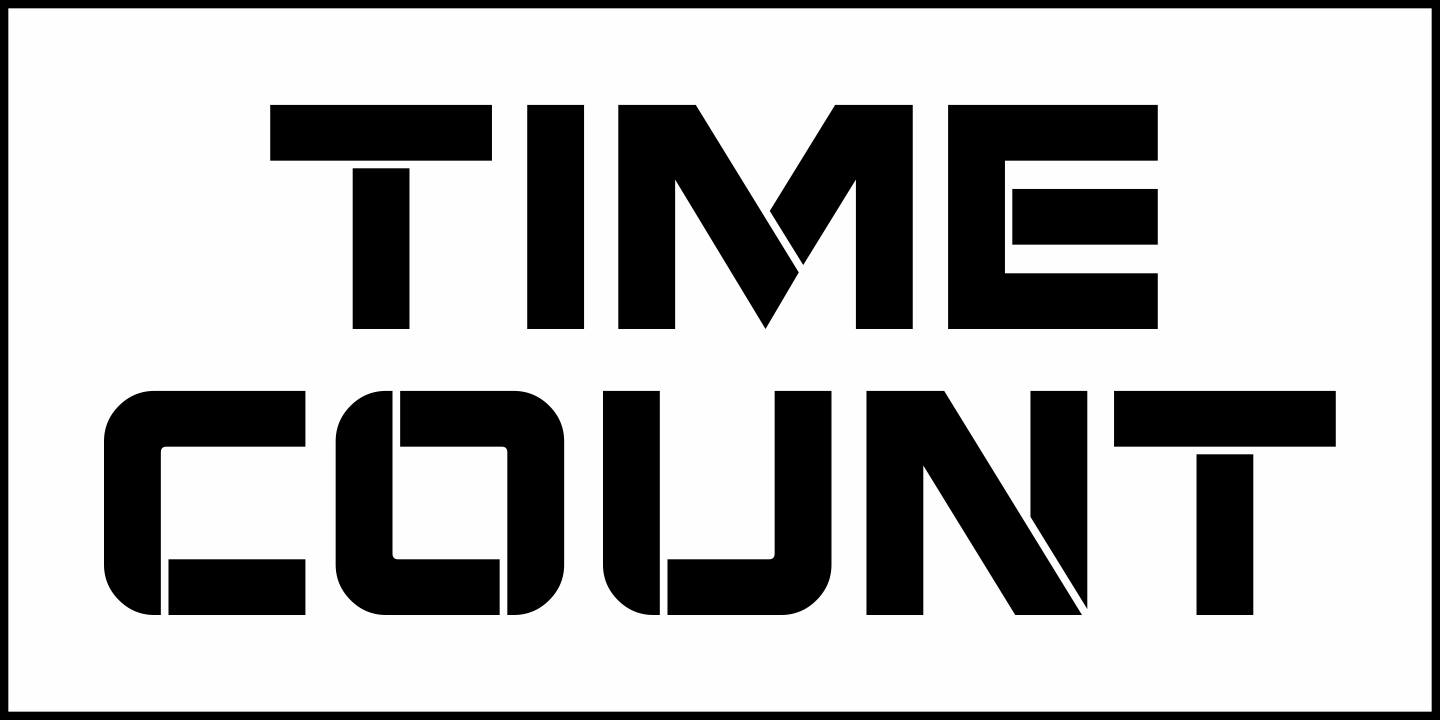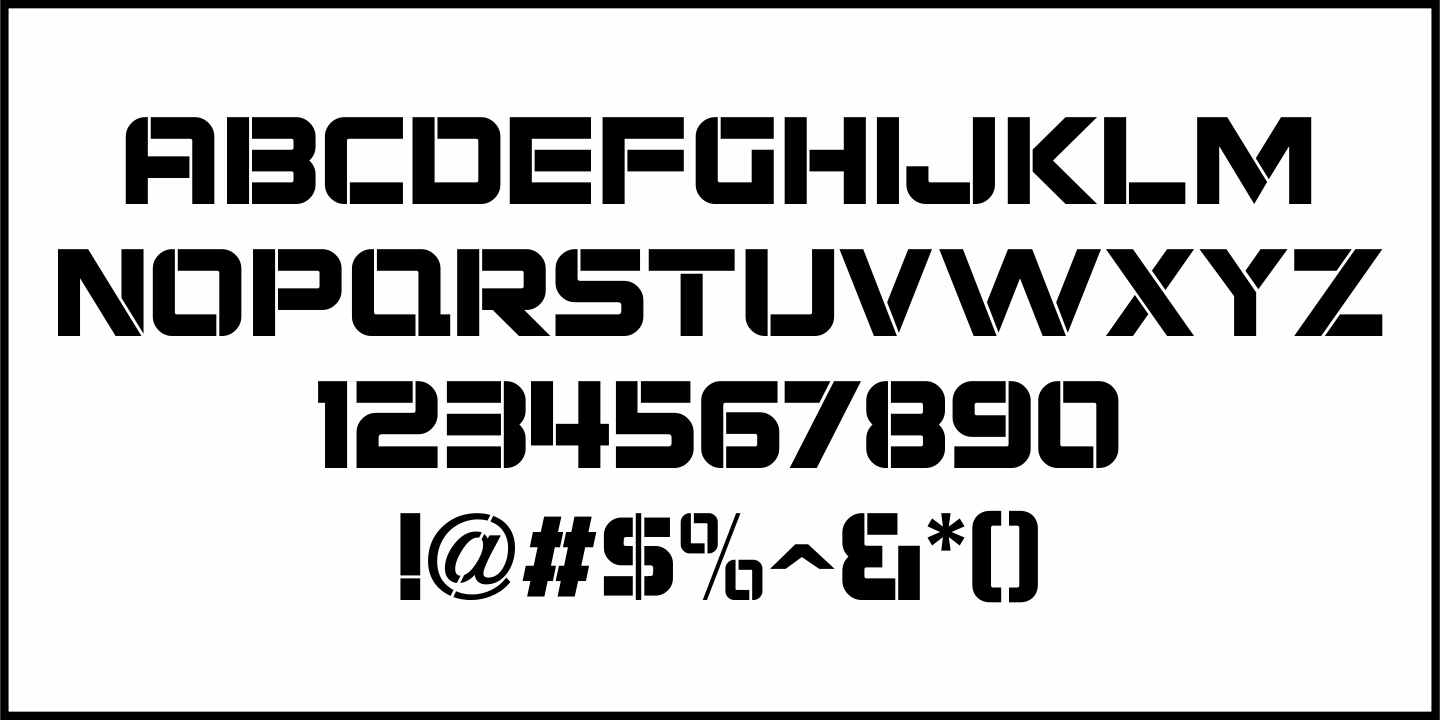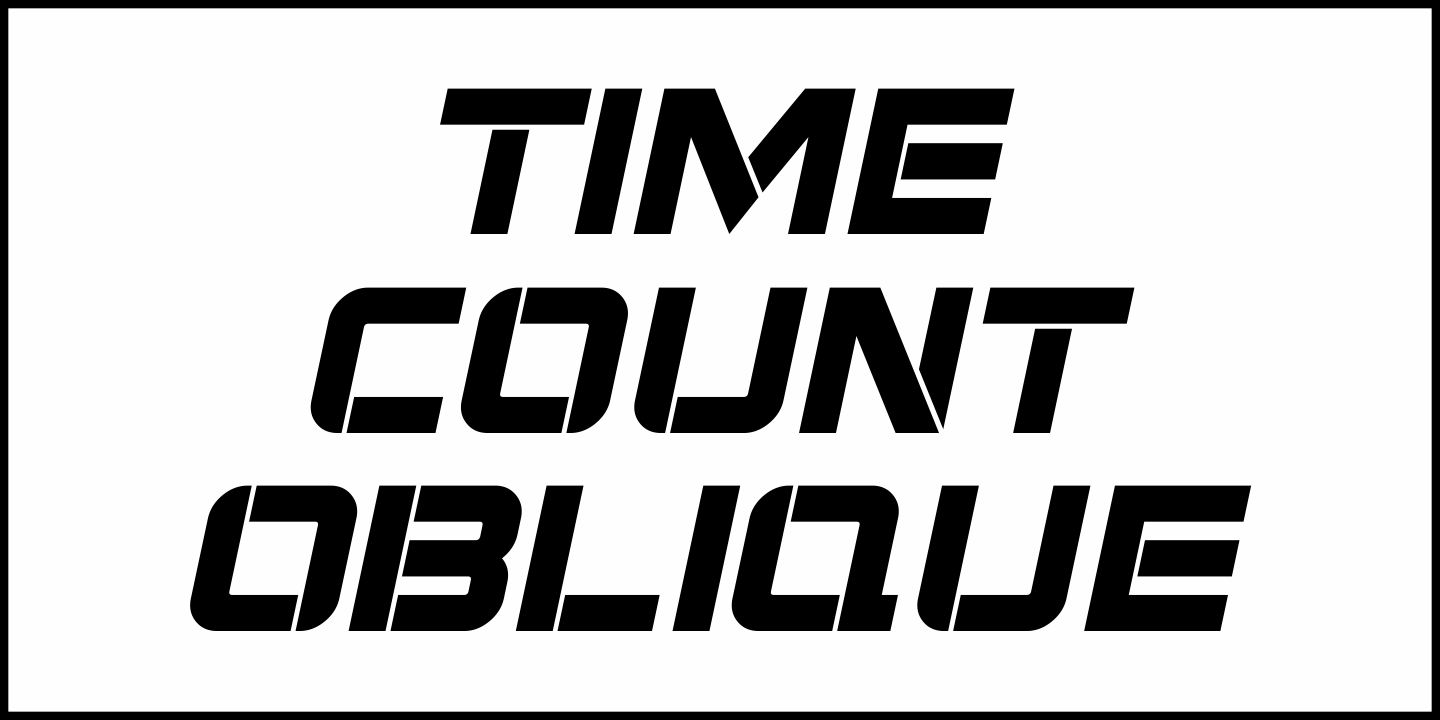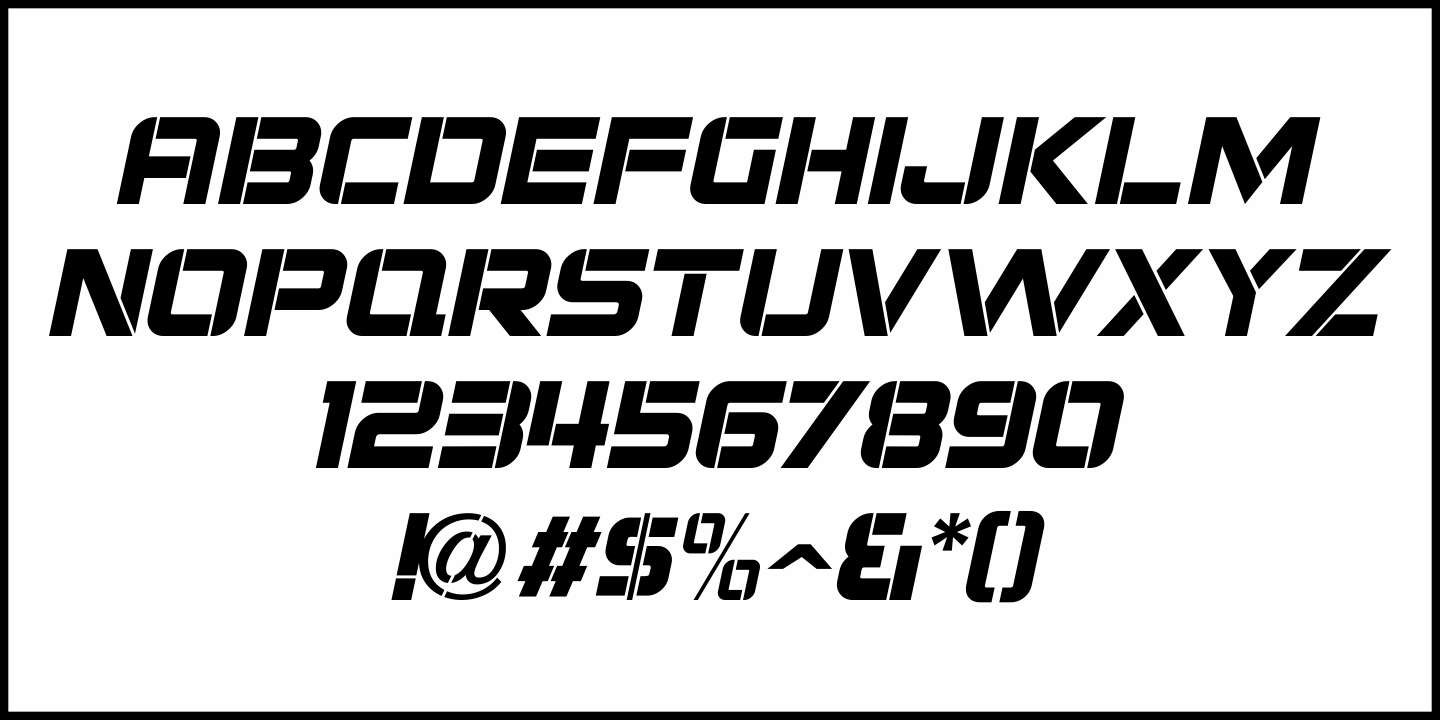
Time Count
On the 1966 movie poster for 'Seconds', Saul Bass designed a hand lettered title utilizing a 'futuristic' stencil style.
This inspired the digital typeface Time Count JNL, which is available in both regular and oblique versions.
Time Count JNL Regular by Jeff Levine Fonts